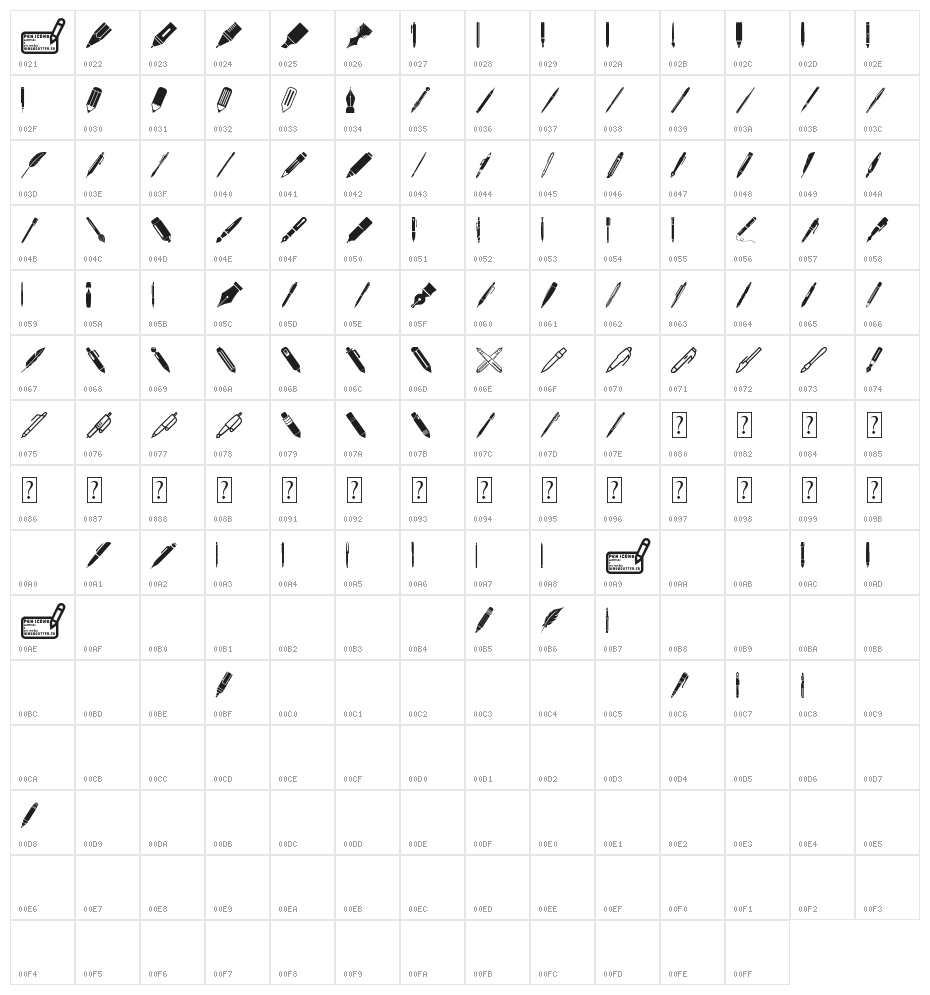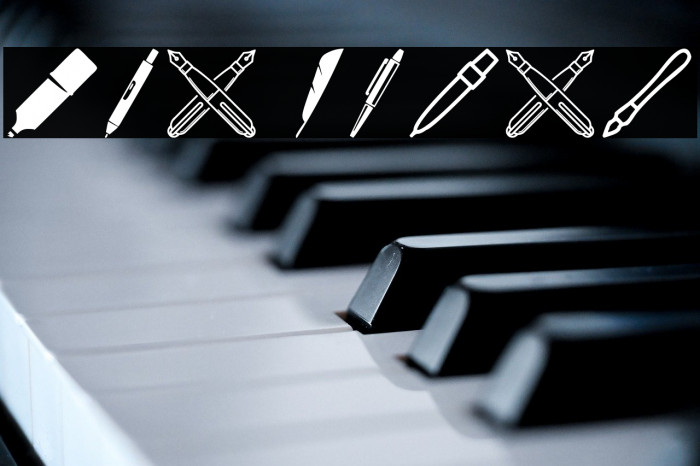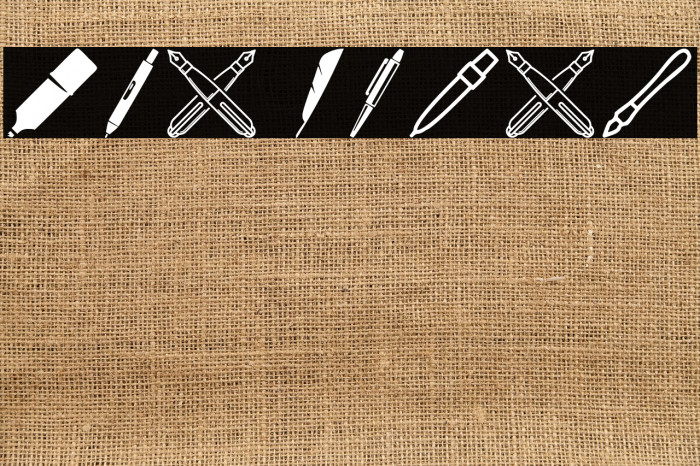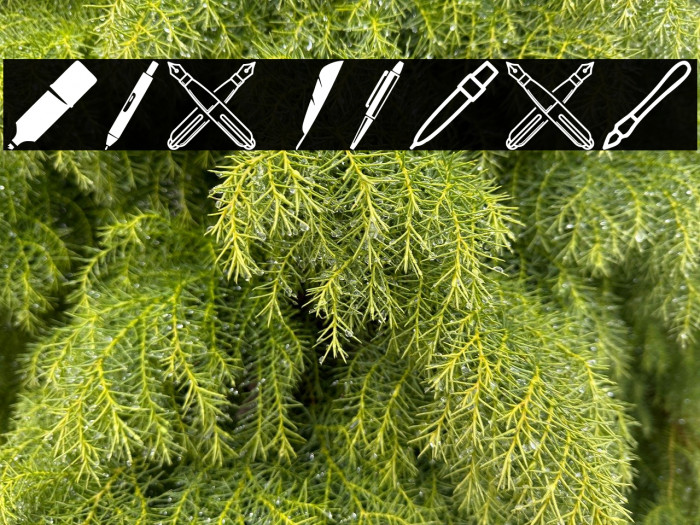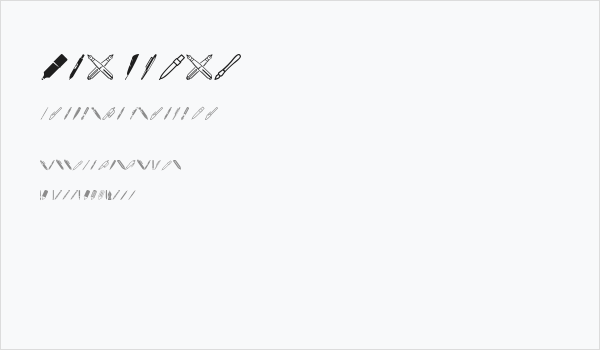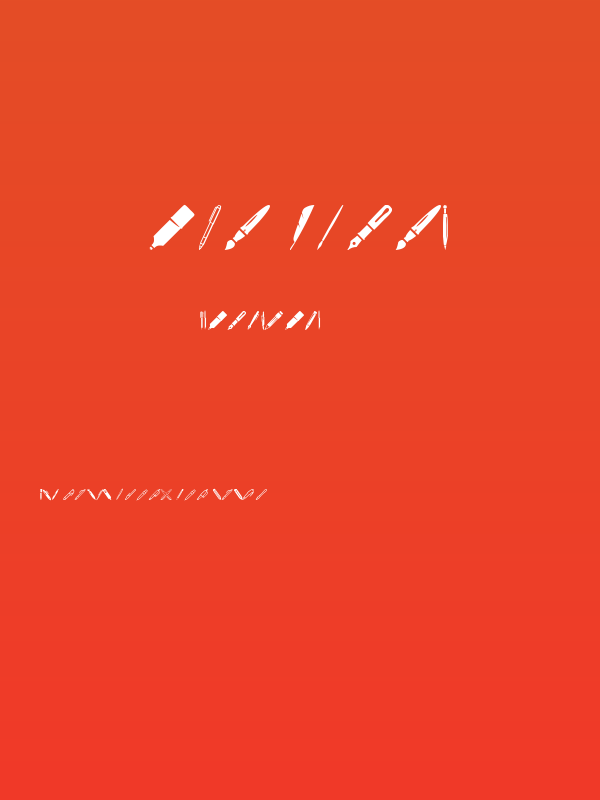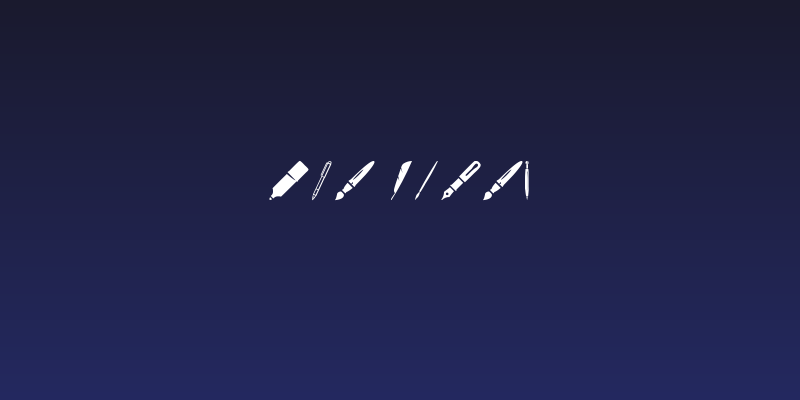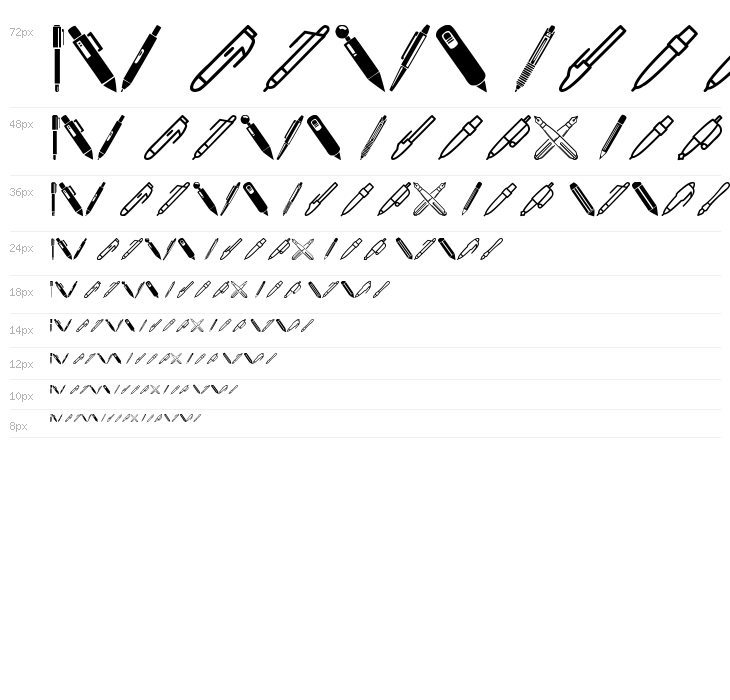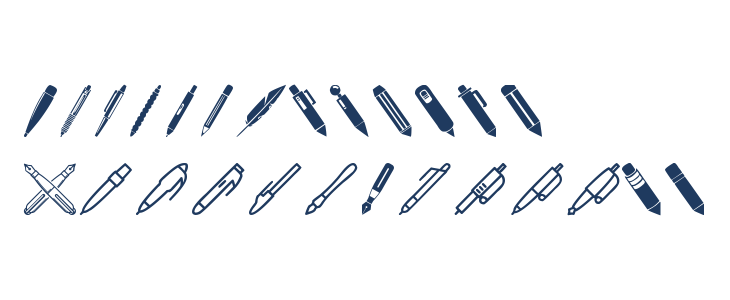
Pen Icons Font
Pen Icons Description
A collection of black silhouette icons representing various types of pens, pencils, markers, brushes, and writing instruments, each with distinct shapes and design details, arranged in a grid layout.
| Overall Style | Decorative, Modern |
| Use Case | Icons, Logos, Infographics, Web design |
| Proposed Projects | App icons, stationery branding, educational materials, website UI elements, creative presentations. |